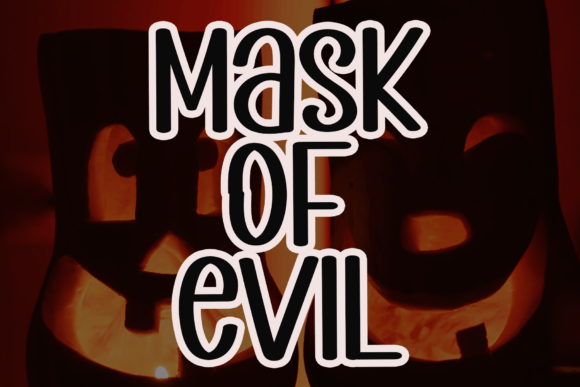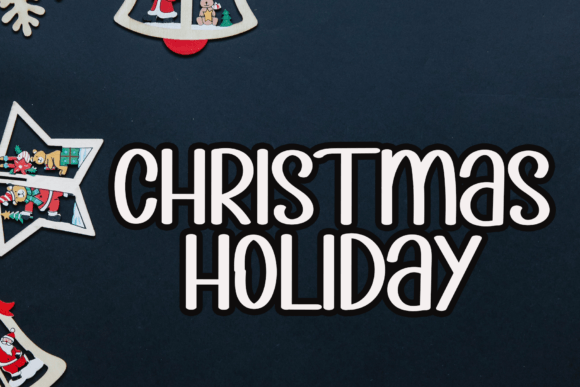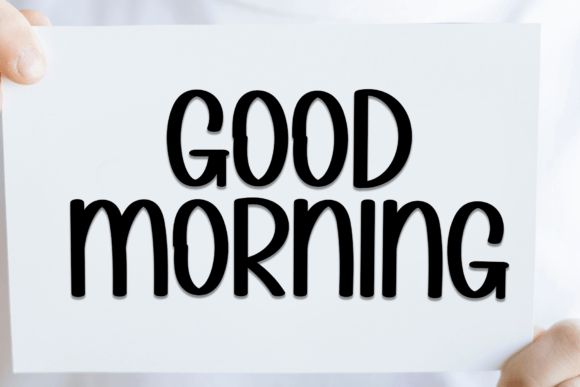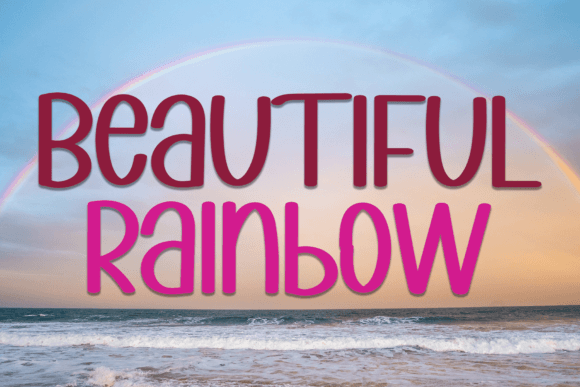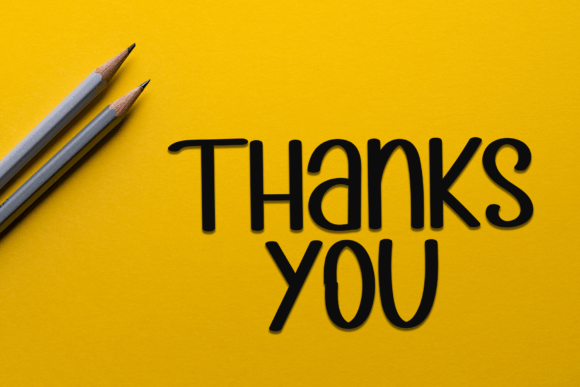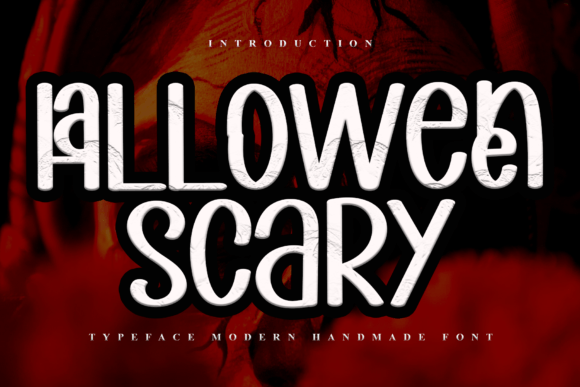
Unleash the Spookiness: Exploring the Halloween Scary Font
Halloween is just around the corner, and with it comes the excitement of creating spooky and fun designs for the season. Whether you’re a designer, crafter, or simply a Halloween enthusiast, having the right font can make all the difference in bringing your creative ideas to life. That’s where the Halloween Scary Font comes in – a fun and cool handwritten font that’s perfect for adding a touch of eeriness to your projects.
What is the Halloween Scary Font?
The Halloween Scary Font is a unique and playful handwritten font designed specifically for the Halloween season. Its irregular and organic shape gives it a delightfully spooky feel, making it ideal for creating eye-catching and festive designs. The font’s handcrafted style adds a personal touch, making your projects stand out from the crowd.
Features of the Halloween Scary Font
- Handwritten style: The Halloween Scary Font boasts a beautifully crafted handwritten style that adds a touch of personality to your designs.
- Spooky and fun: The font’s irregular shape and playful vibe make it perfect for creating spooky and fun designs that capture the essence of Halloween.
- Versatile: The font can be used for a wide range of projects, from Halloween-themed party invitations and decorations to social media graphics and more.
Design Ideas Using the Halloween Scary Font
The Halloween Scary Font is perfect for a wide range of design projects, including:
- Halloween party invitations: Create spooky and fun invitations that set the tone for your Halloween party.
- Social media graphics: Use the font to create eye-catching social media graphics that showcase your Halloween spirit.
- Craft projects: Add a personal touch to your craft projects, such as Halloween-themed cards, gift tags, and decorations.
- Signs and banners: Use the font to create attention-grabbing signs and banners that welcome trick-or-treaters or advertise your Halloween event.